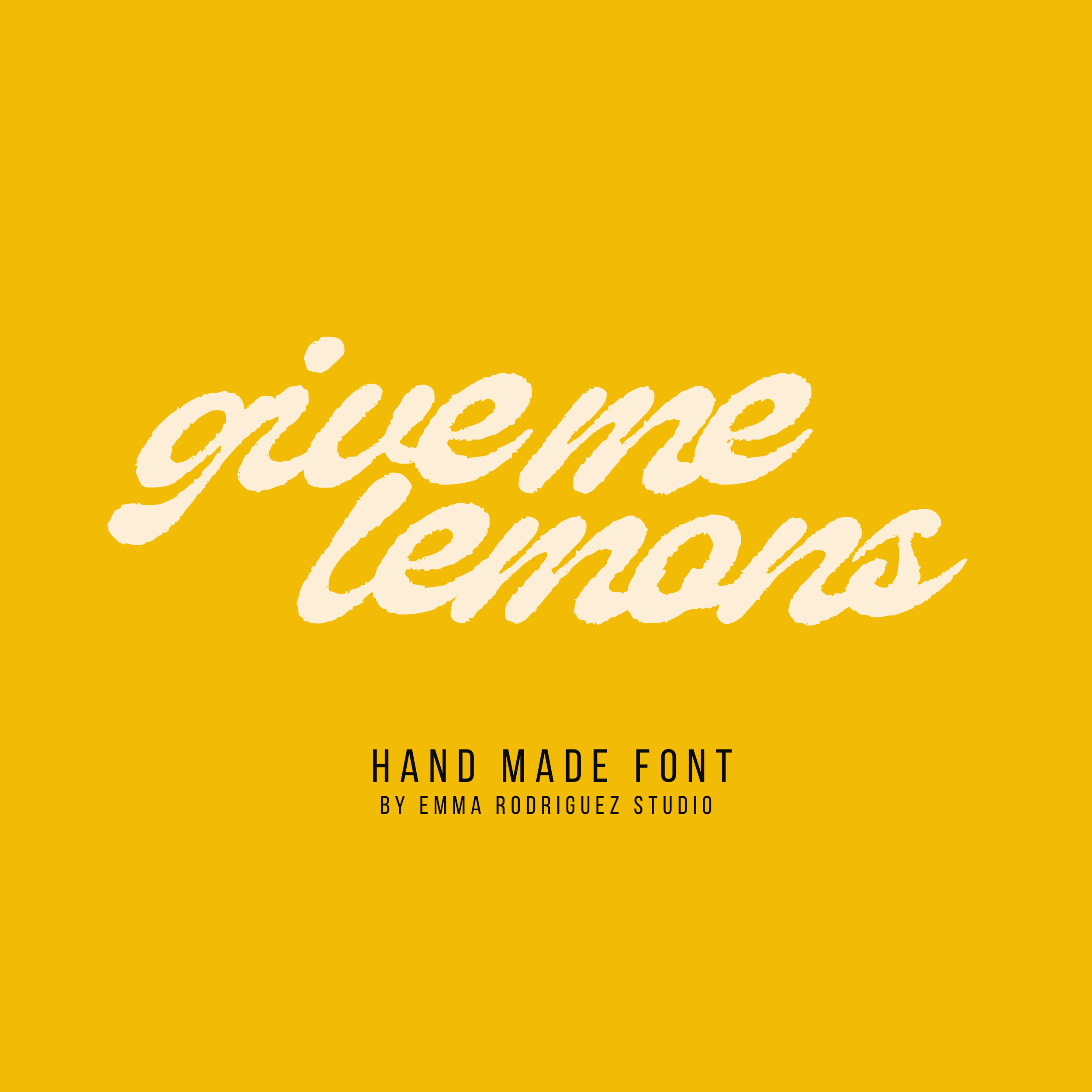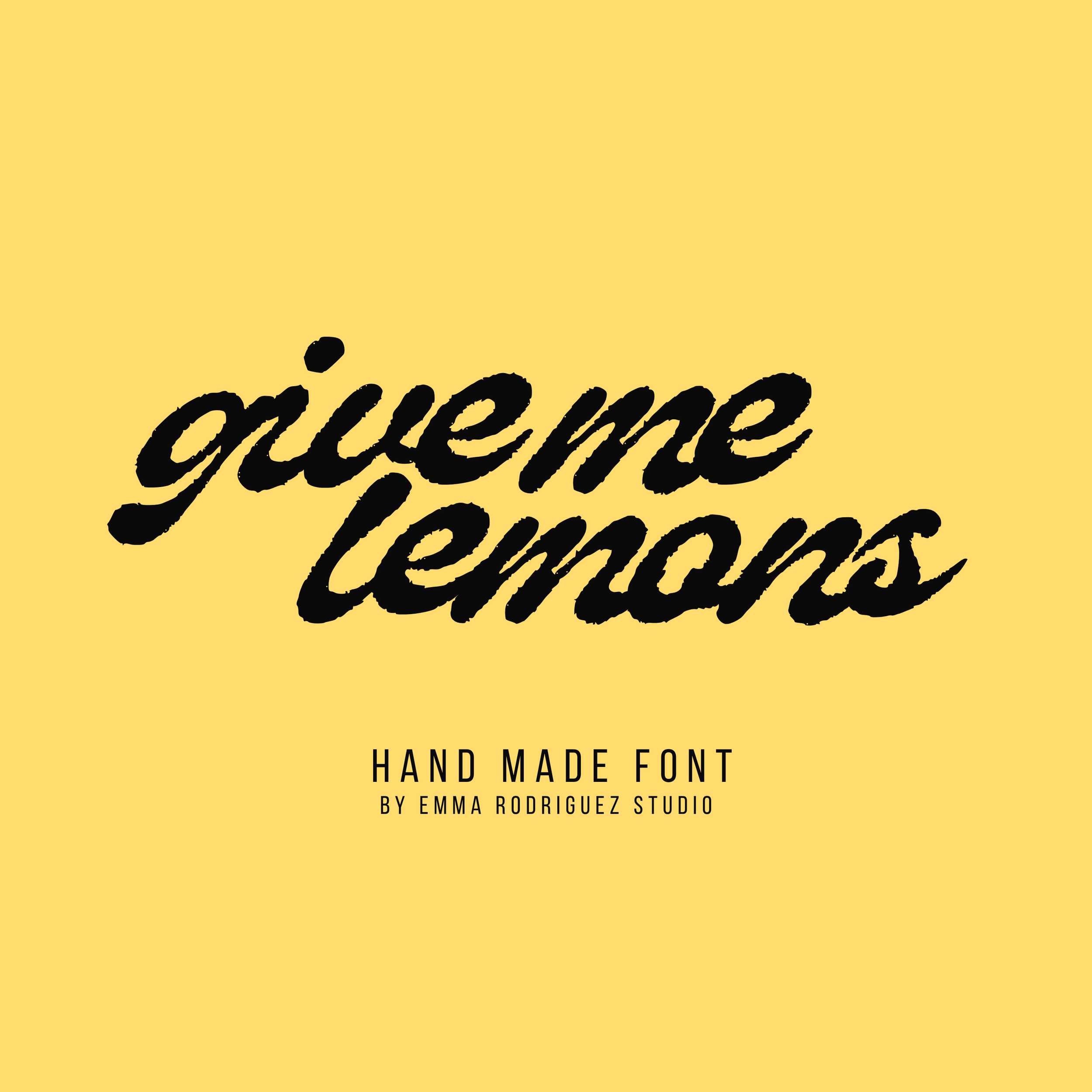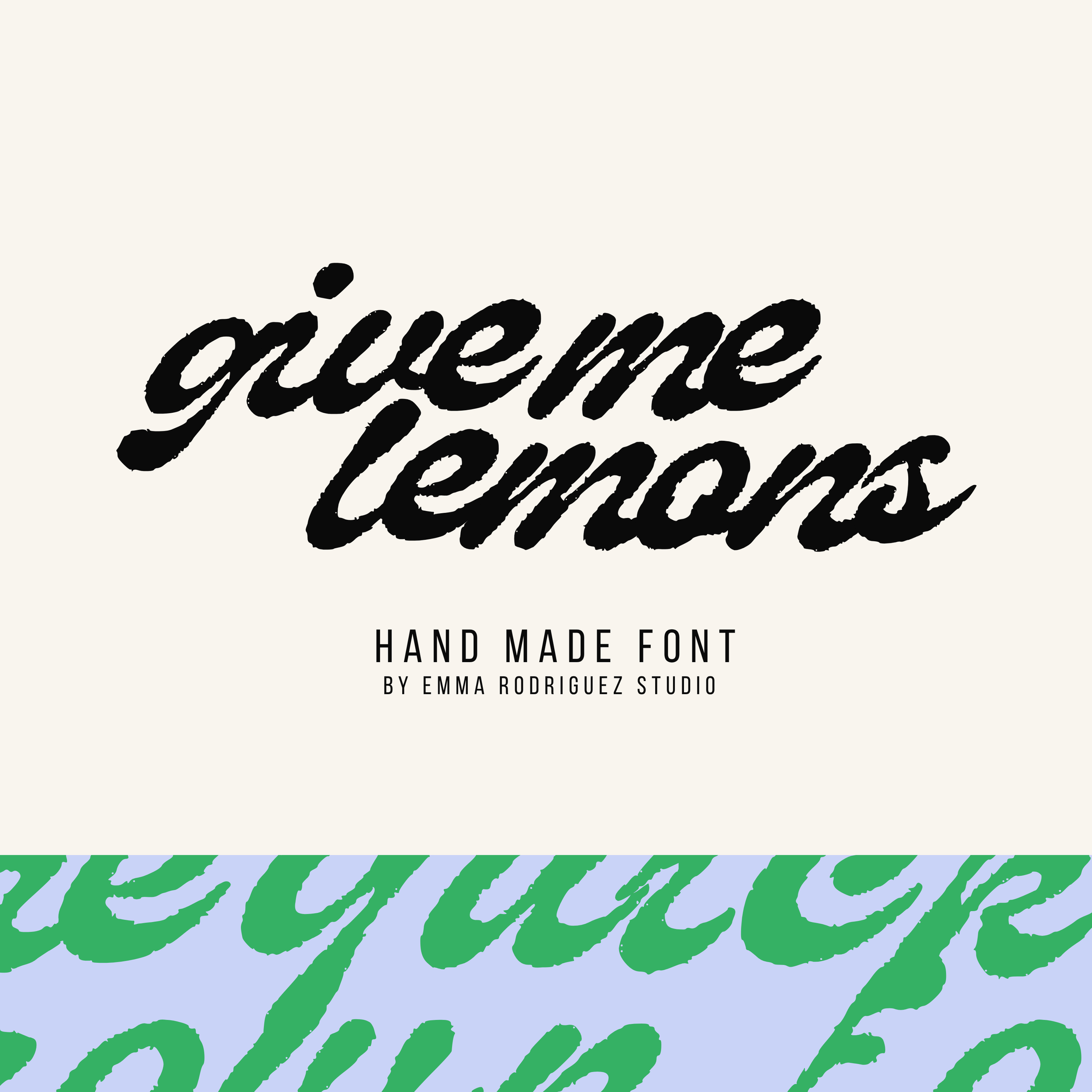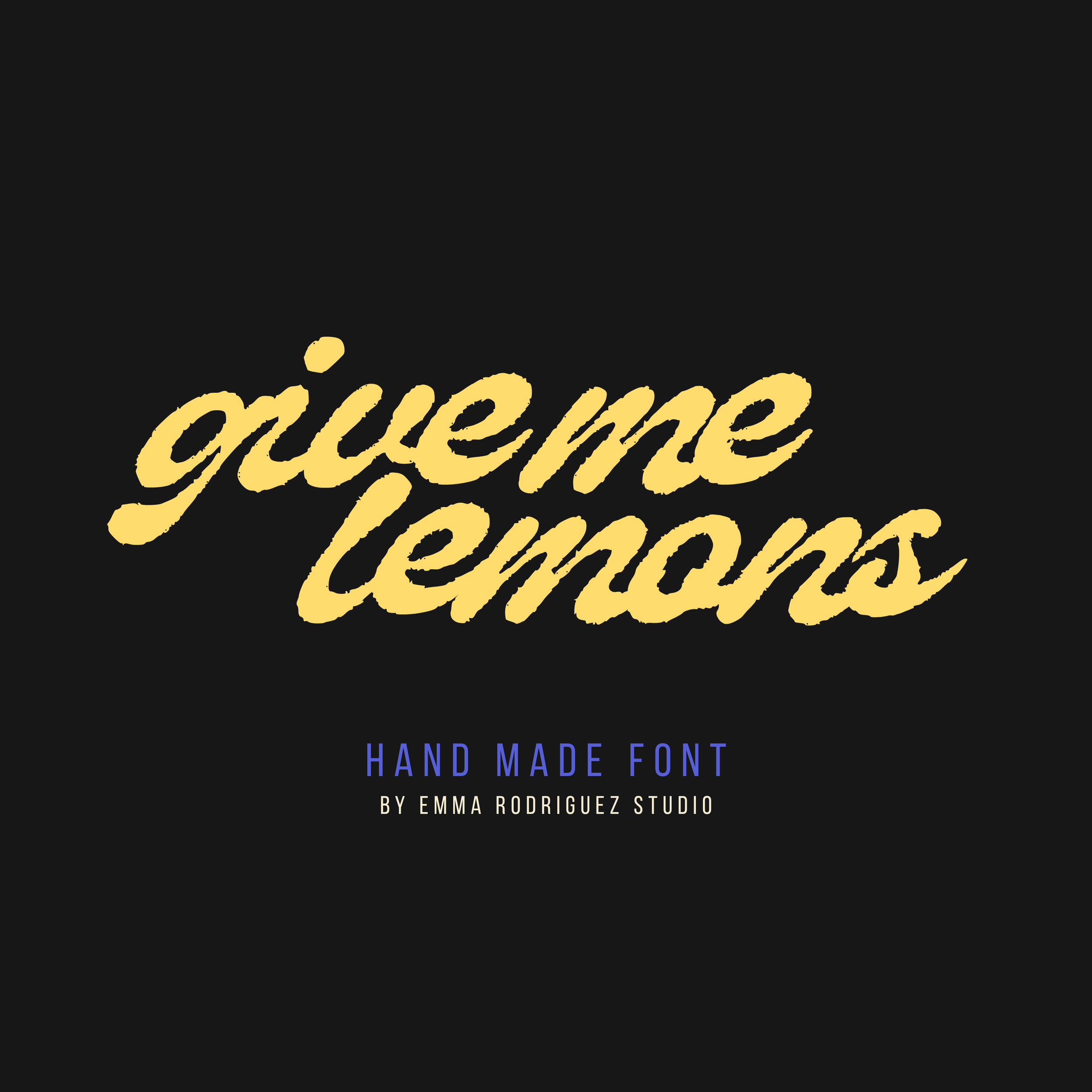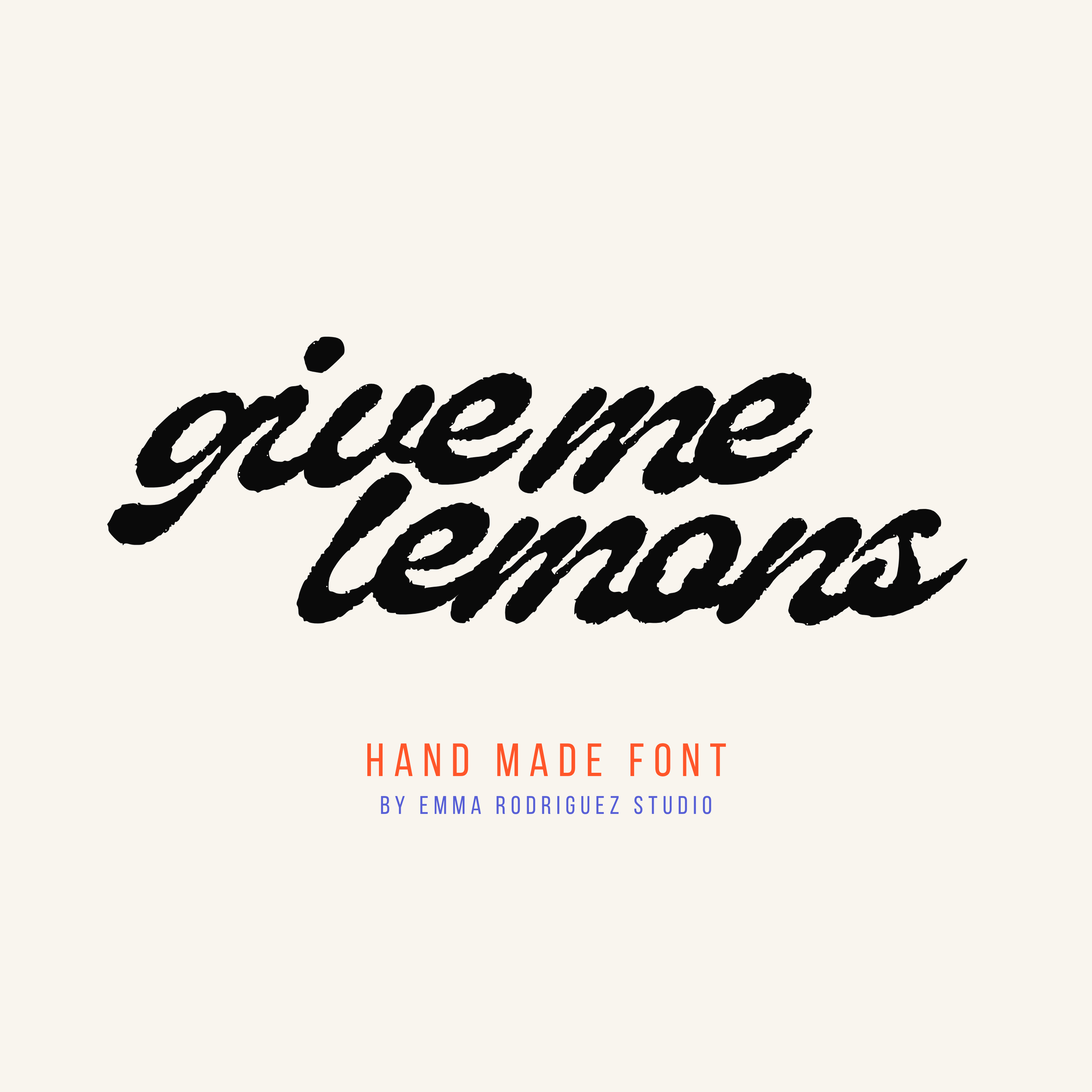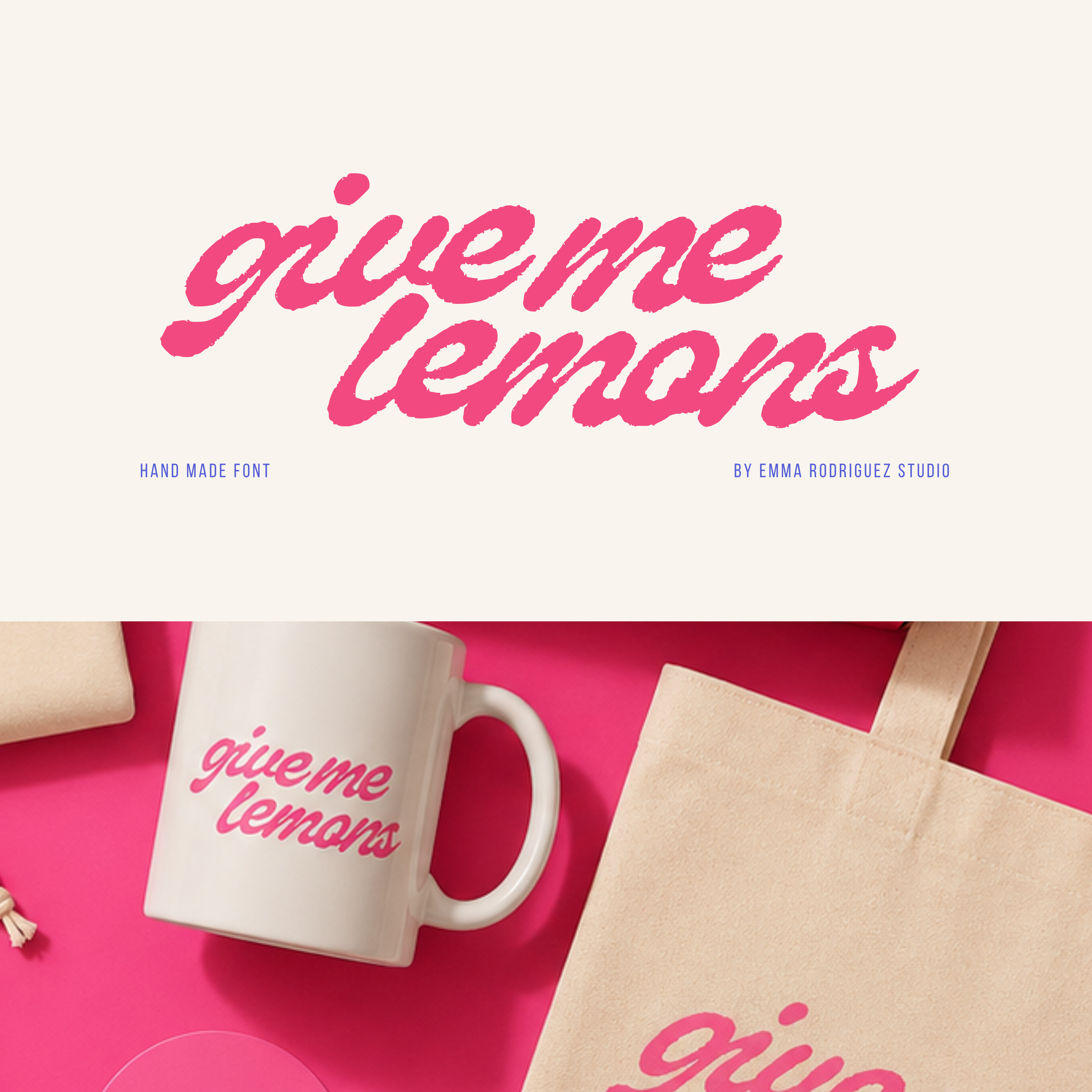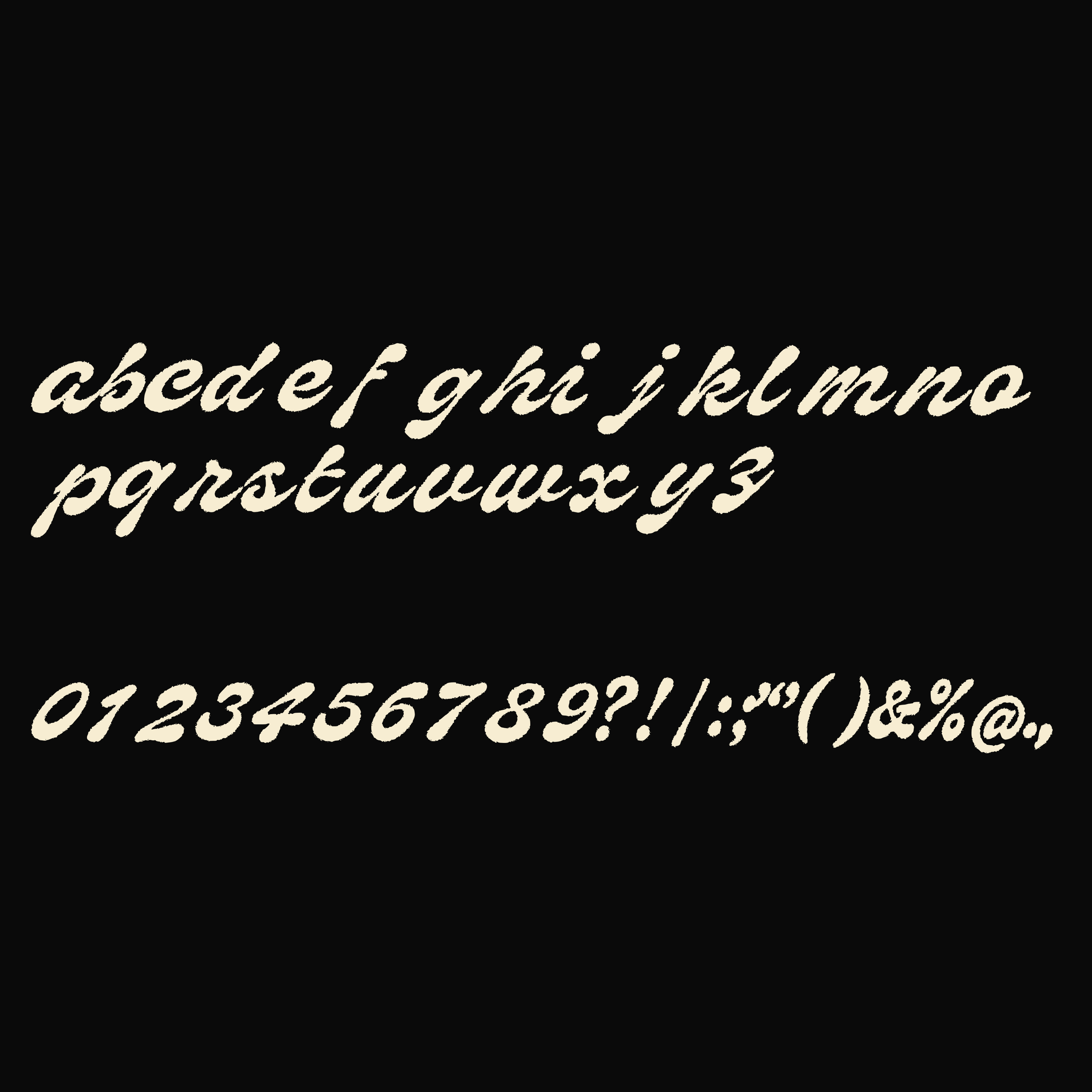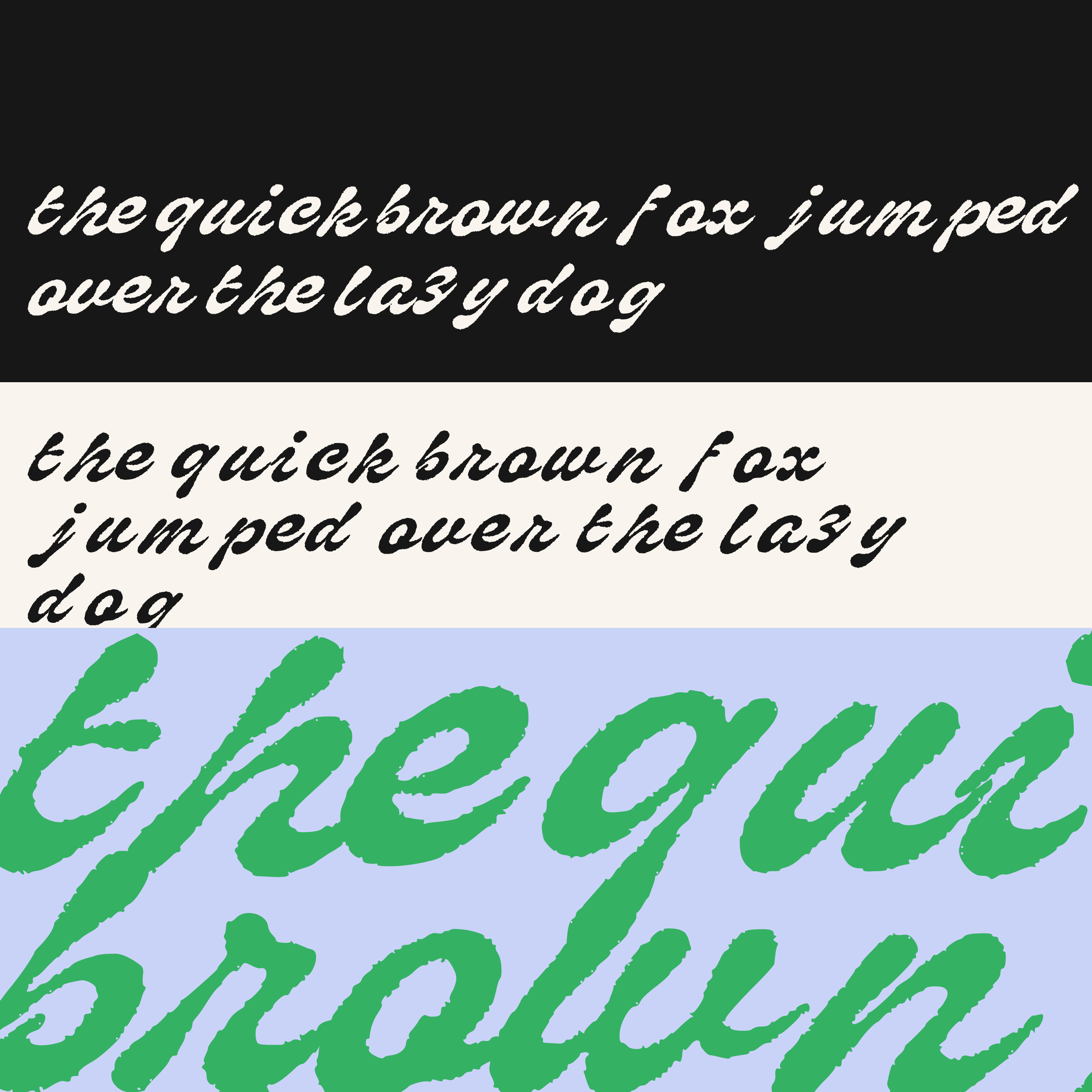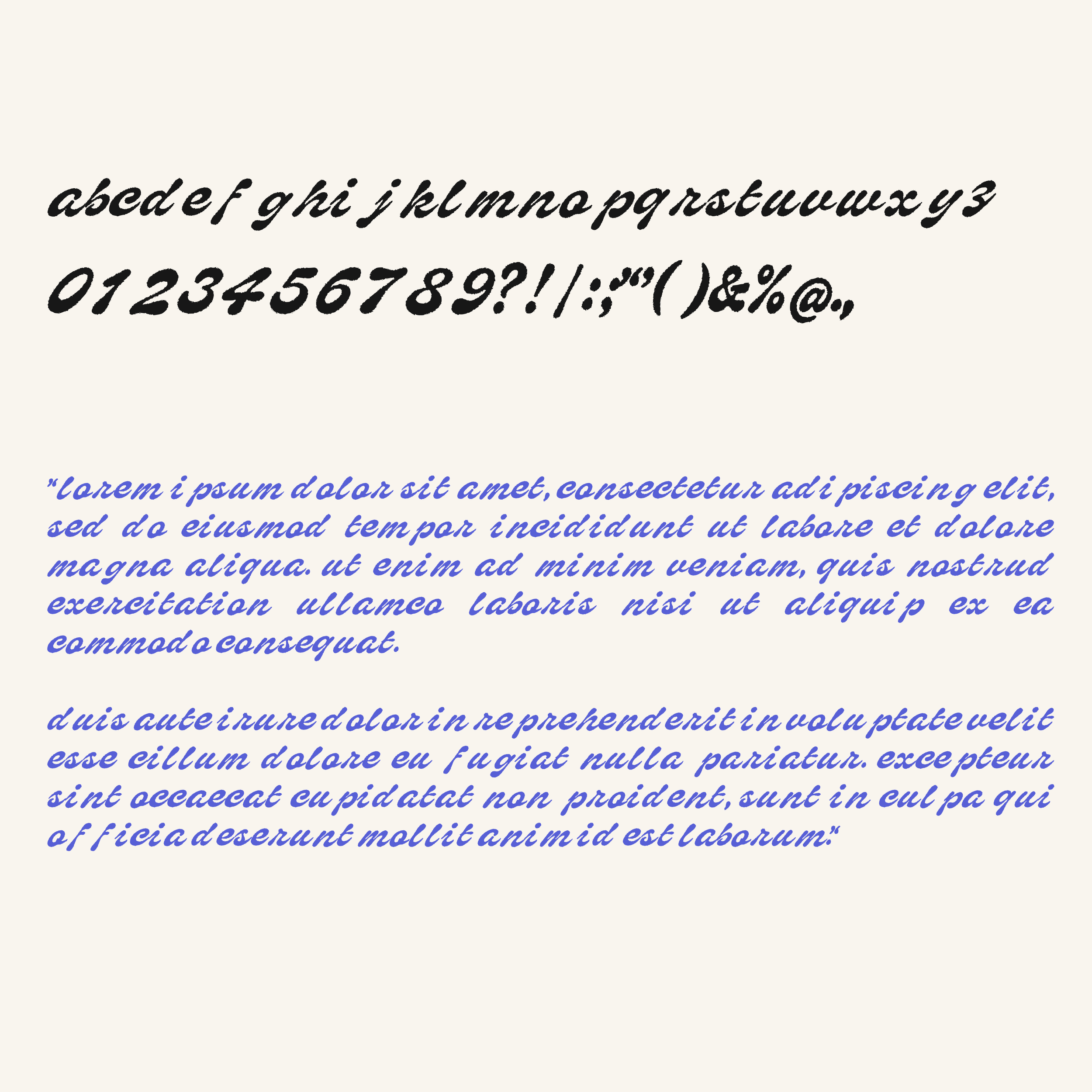
Give Me Lemons Font - Brush Script Type
Give Me Lemons is a bold handmade brush script font designed to bring raw personality and movement into your typography work. Featuring rough painted edges, expressive brush textures, and fluid connected lettering, this typeface blends retro sign painting influences with modern creative branding trends.
The font has a loose, energetic feel with visible handmade imperfections that give layouts a more human and organic look. Perfect for designers who want typography that feels expressive, bold, and slightly messy in the best possible way.
This font works especially well for poster design, packaging, branding projects, apparel graphics, editorial layouts, album artwork, social media content, and small businesses wanting something more visually distinctive than clean corporate typography.
• Lowercase letters
• Numbers 0–9
• Basic punctuation
The rough textures, uneven edges, and handmade imperfections are intentional parts of the font design and help create its painted expressive style.